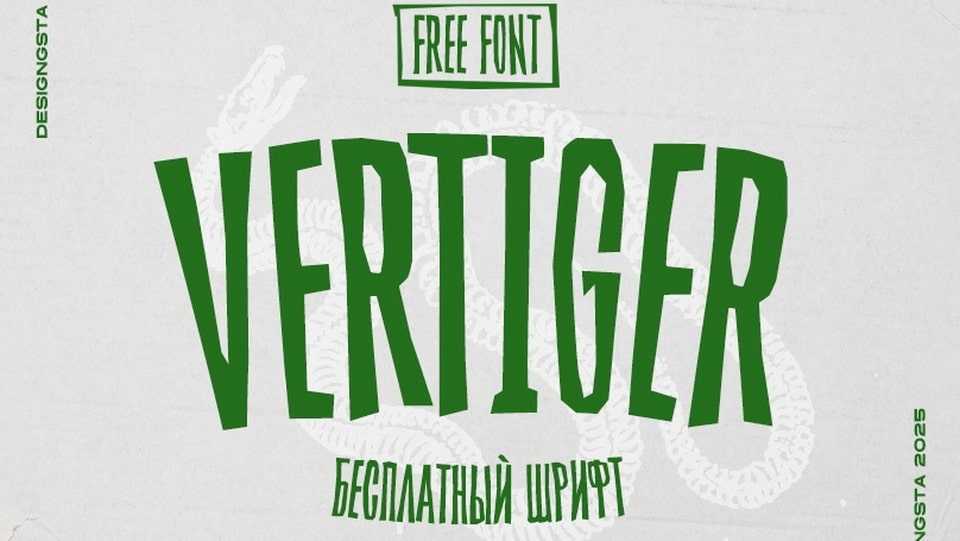
Download Vertiger font, a condensed, rough, and rhythmically repetitive typeface that captures the enigmatic charm of mystical film posters from the 1950s and 60s.
Designer: Ilya Designgsta